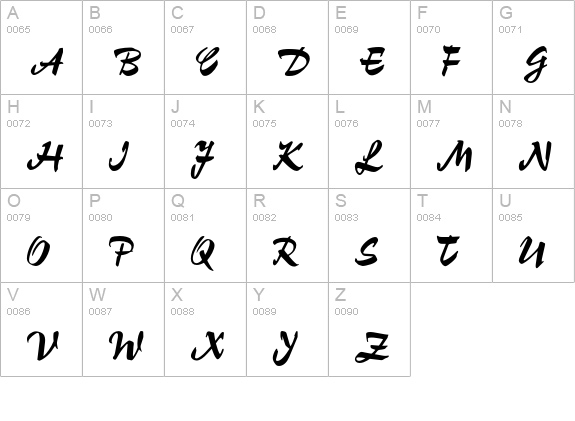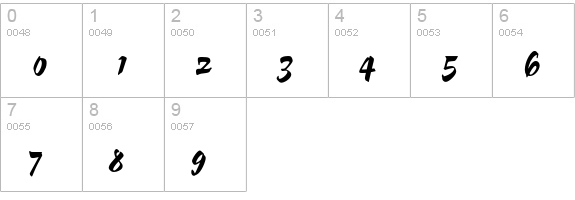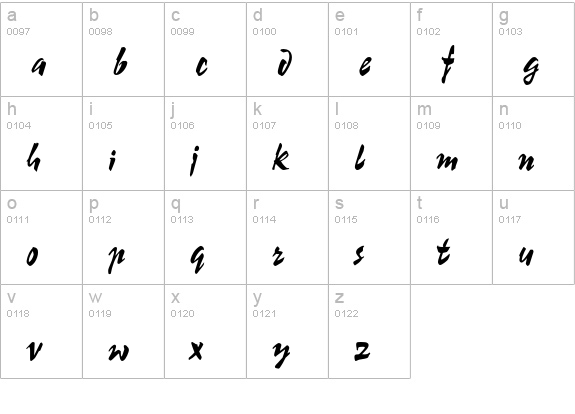
OPTIChampion-Script Font Details
Introducing OPTIChampion-Script font, a stunning calligraphic typeface that exudes elegance and sophistication. This font is perfect for adding a touch of grace to your designs, whether for invitations, branding, or other creative projects. OPTIChampion-Script features beautiful flowing lines and delicate curves, making it a timeless choice for any designer looking to elevate their work. The best part? OPTIChampion-Script is completely free to download at FontsMarket.com. Yes, you read that right - this exquisite font can be yours at no cost, allowing you to bring a touch of luxury to your projects without breaking the bank. Don't miss out on this opportunity to enhance your designs with the beauty and charm of OPTIChampion-Script. Download it today and let your creativity shine!